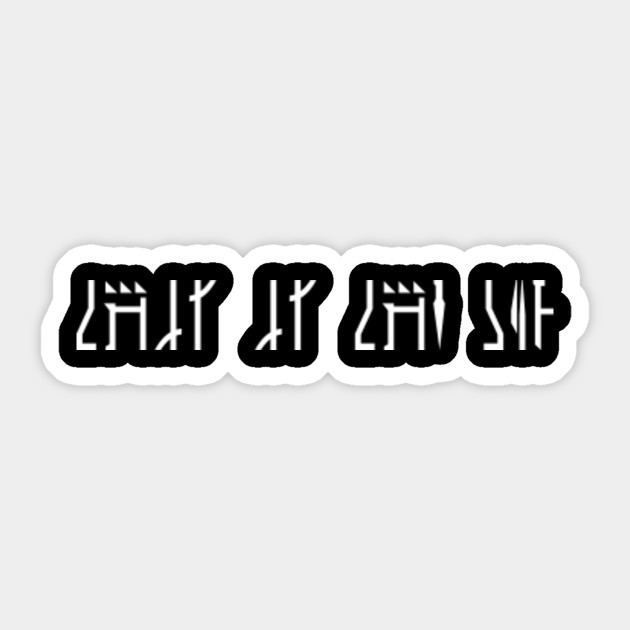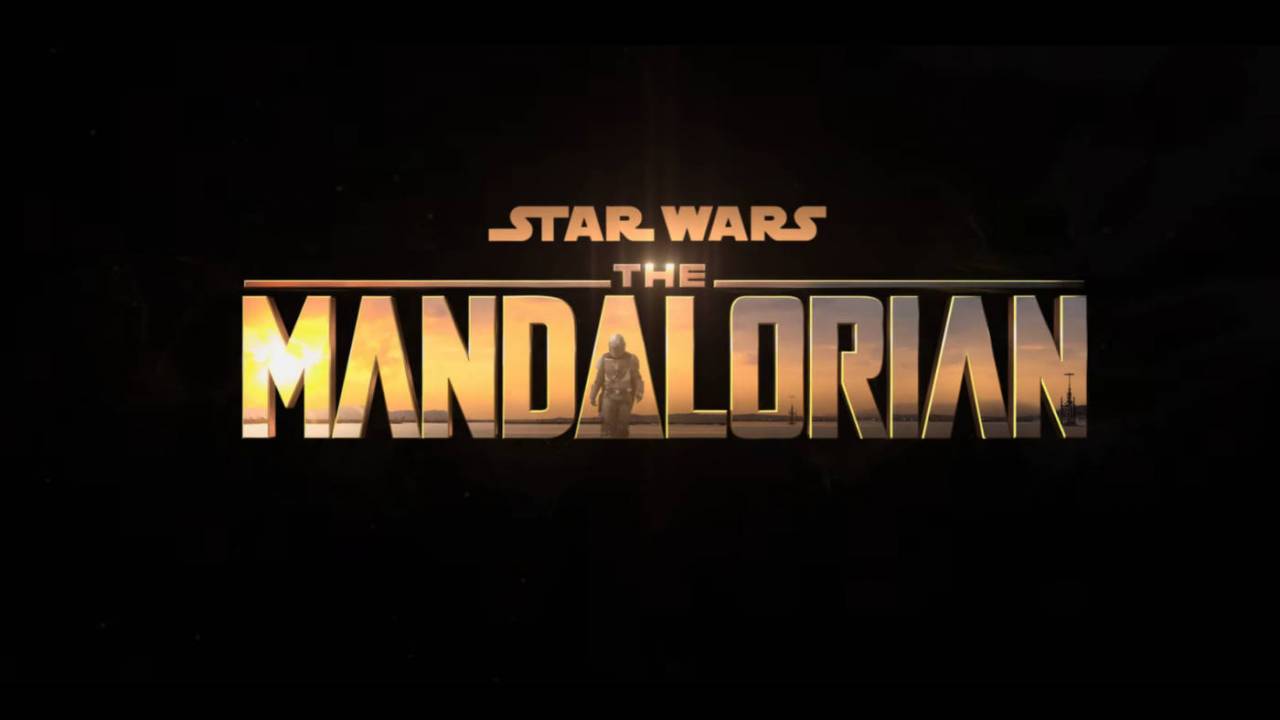
The Mandalorian Font
The mandalorian font. The main part of the logo was probably designed based on font bureaus agency black. The zip archive contains the following files. Fuente inspirada en la serie de tv the mandalorian los mandalorianos.
The mandalorian is a the mandalorian font that was created by fontstudio lab in 2019. The mandalorian is an american space western web television series created by jon favreau and released on disney. Mandalorian font is a logo font that we have seen in the mandalorian title.
But before talking about this typeface we should discuss mandalorian history. Proximamente nuevos glyphs y mucho mas. The mandalorian also known as star wars.
The mandalorian font is a font called mandalore created by iconian fonts. Mandalore by iconian fonts is a free font that resembles the lettering. About the mandalorian font.
Its an american space western web television series that was first released on november 12 2019. The mandalorian logo font. It is the first live action series in the star wars franchise.